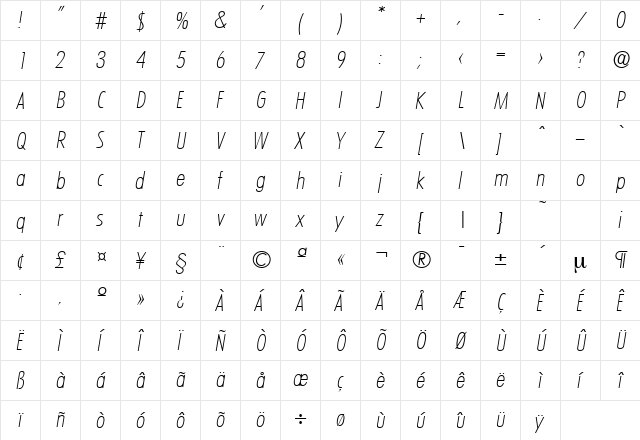
LimerickCond-Serial-ExtraLight RegularItalic Font Preview
Design Context for LimerickCond-Serial-ExtraLight Typeface
LimerickCond-Serial-ExtraLight takes a measured approach to typography — its balanced proportions and neutral character make it a reliable workhorse for both digital and print work. The slanted form adds forward momentum and visual energy. The delicate stroke weight brings airiness and refinement to layouts. Its narrow stance lets it pack a punch even in space-constrained designs.
Pro Tip: Try LimerickCond-Serial-ExtraLight for annotation and caption copy alongside an upright companion — the contrast in angle creates a dynamic but ordered typographic system.